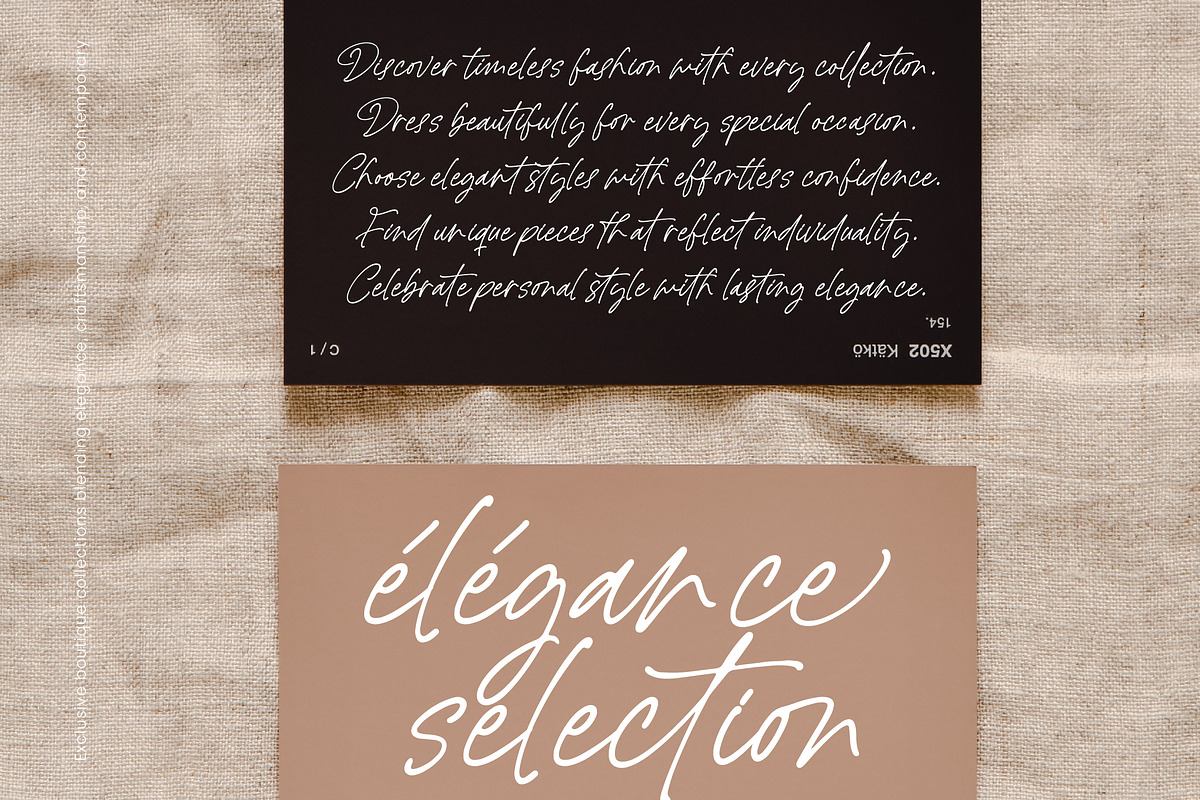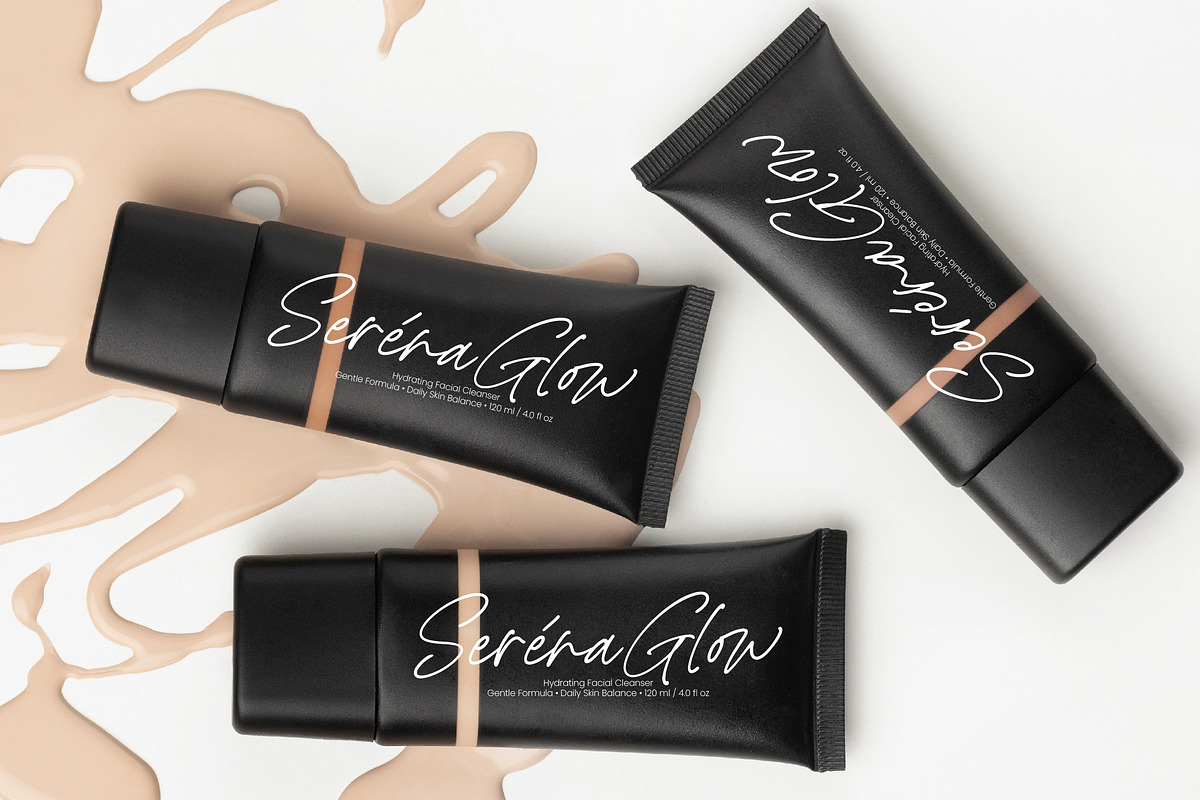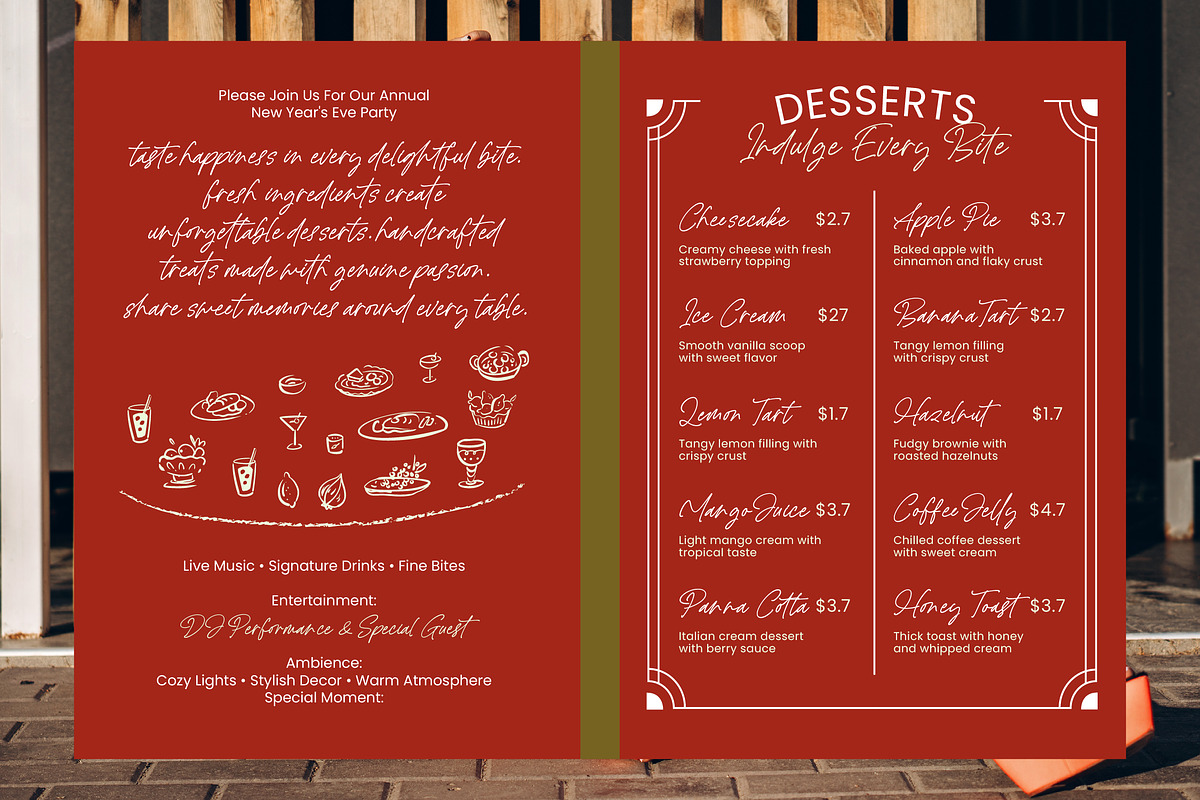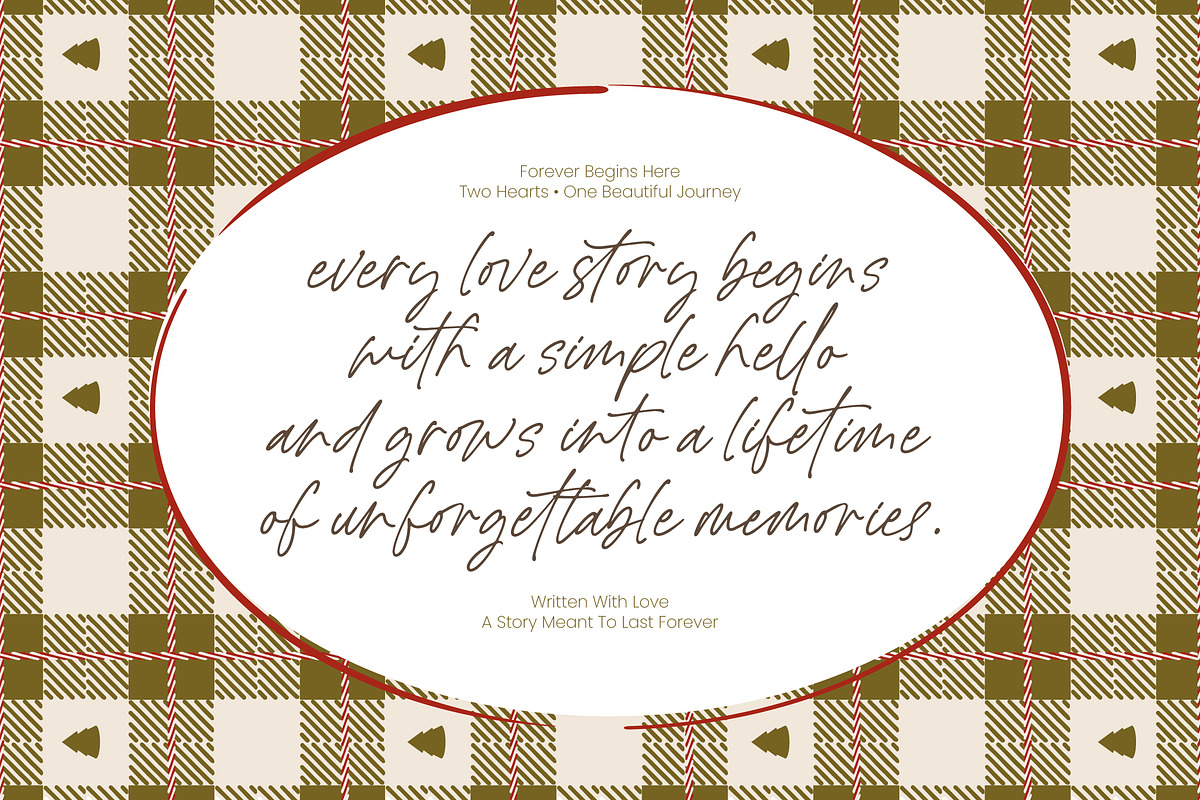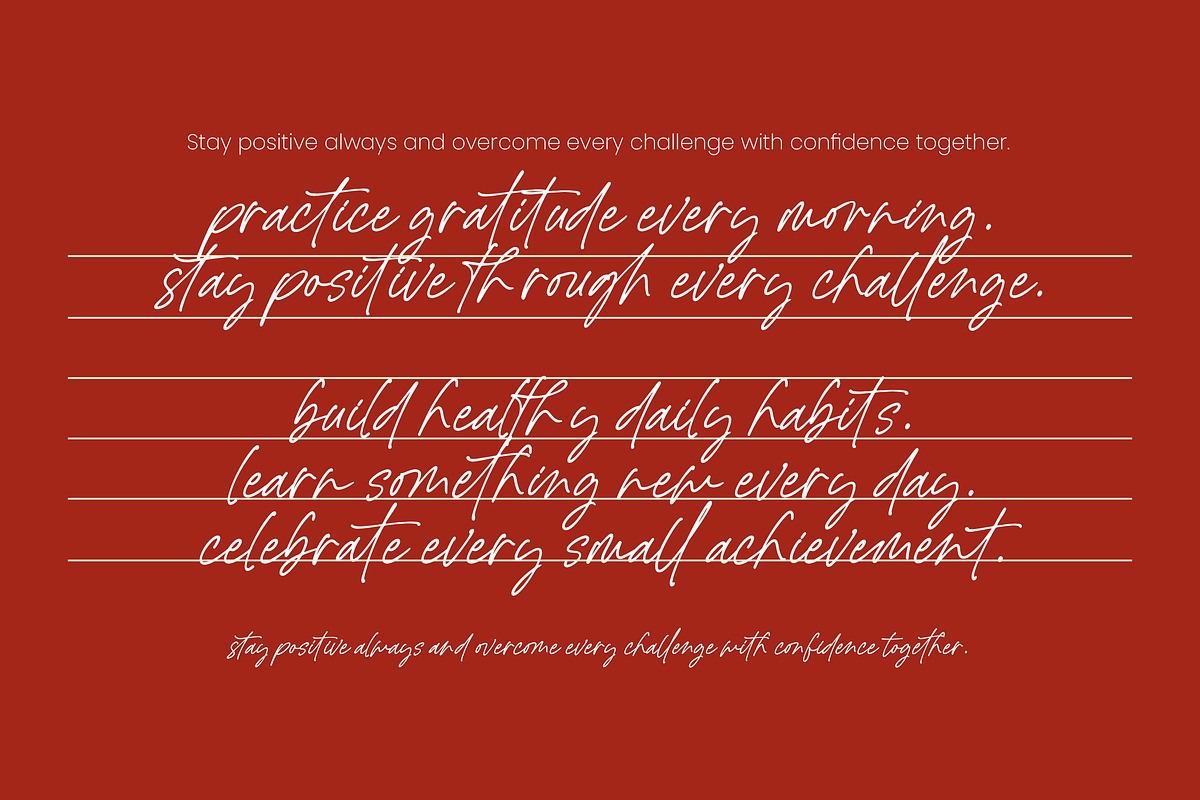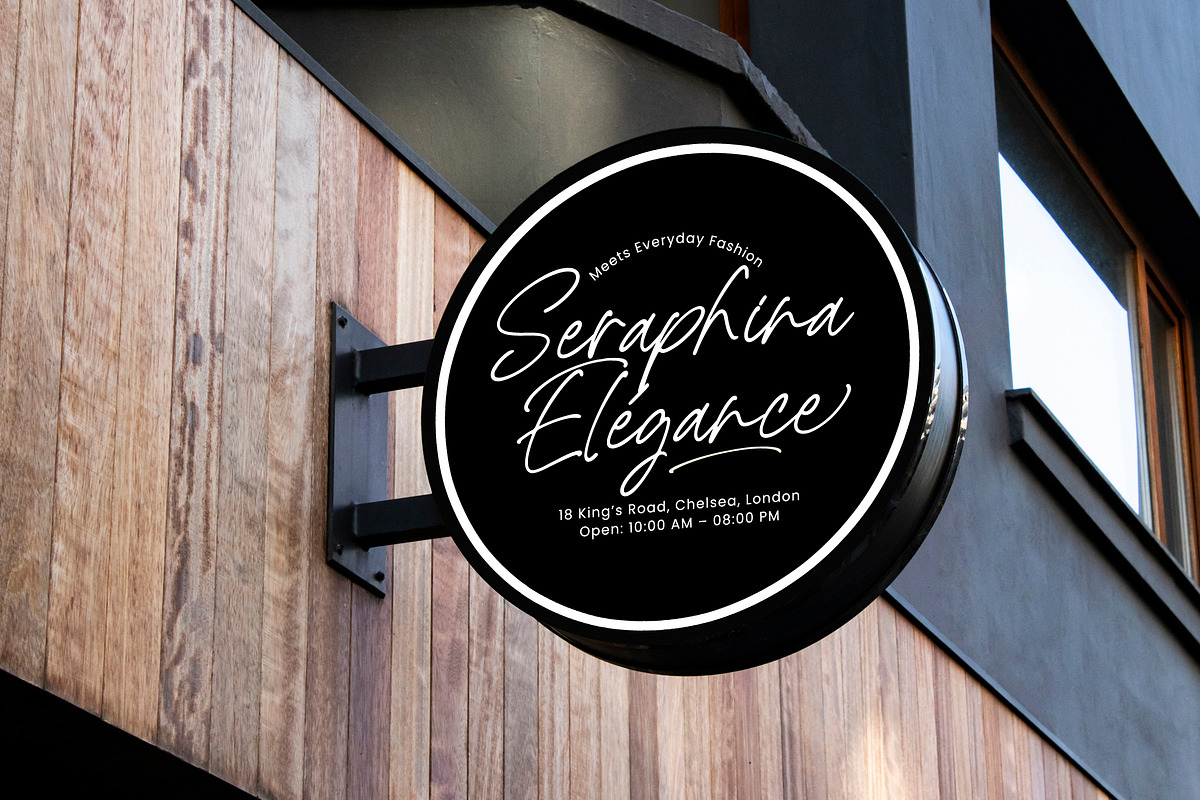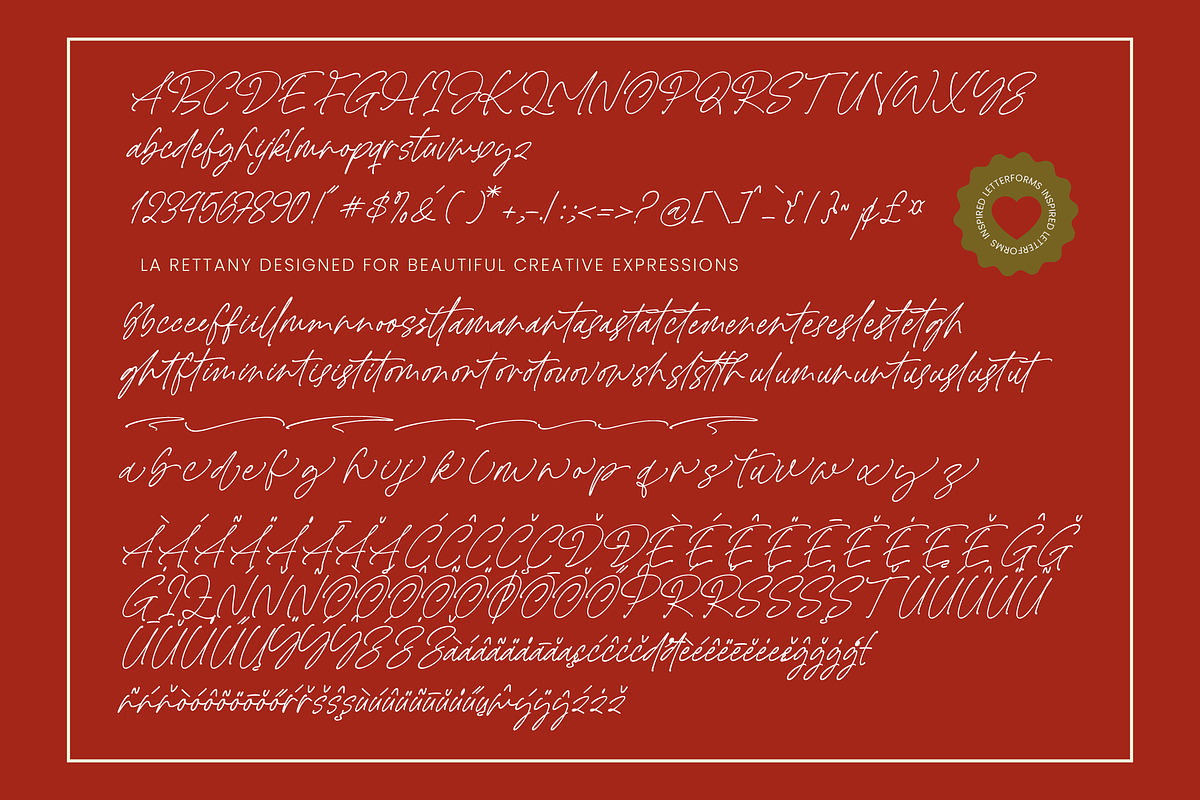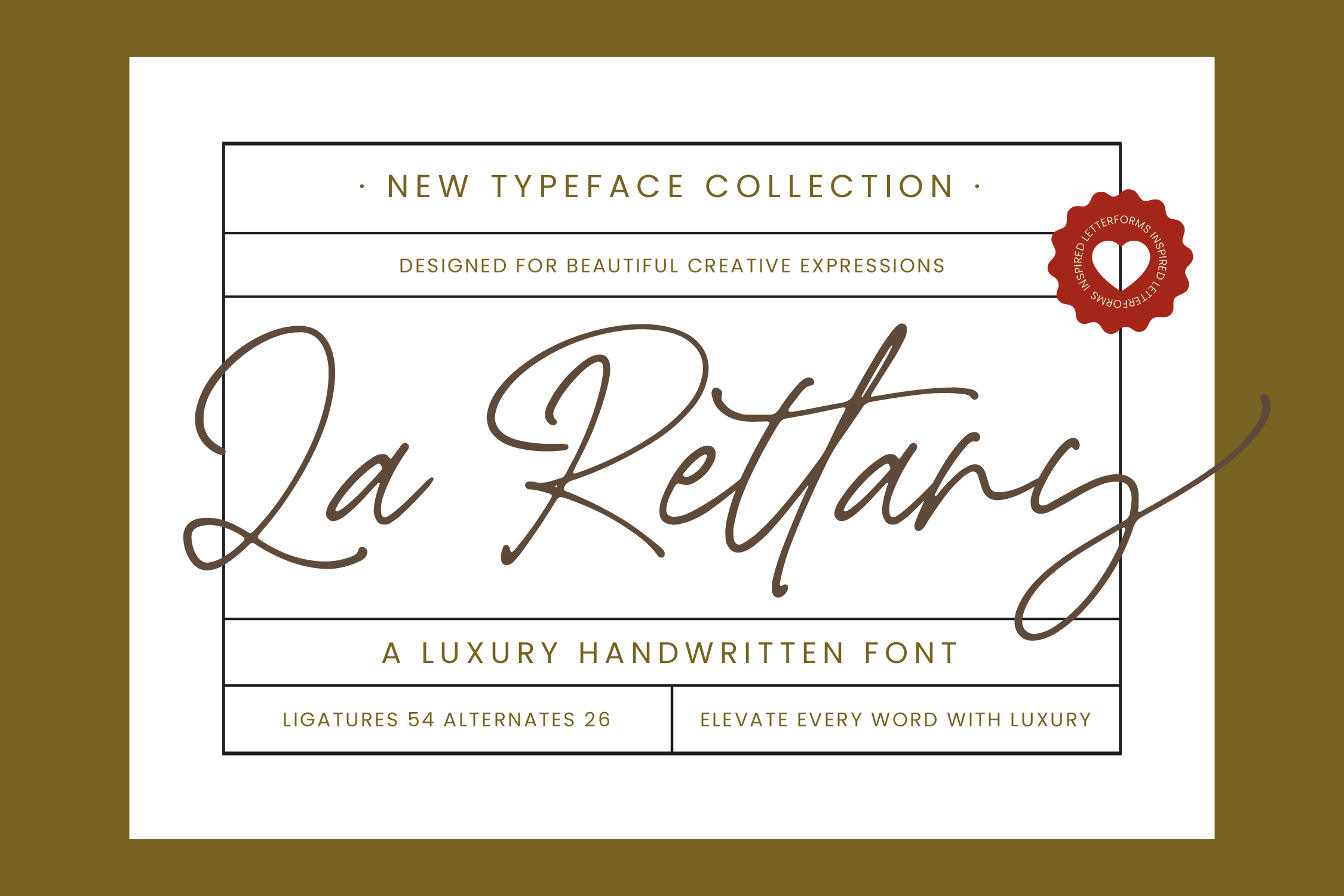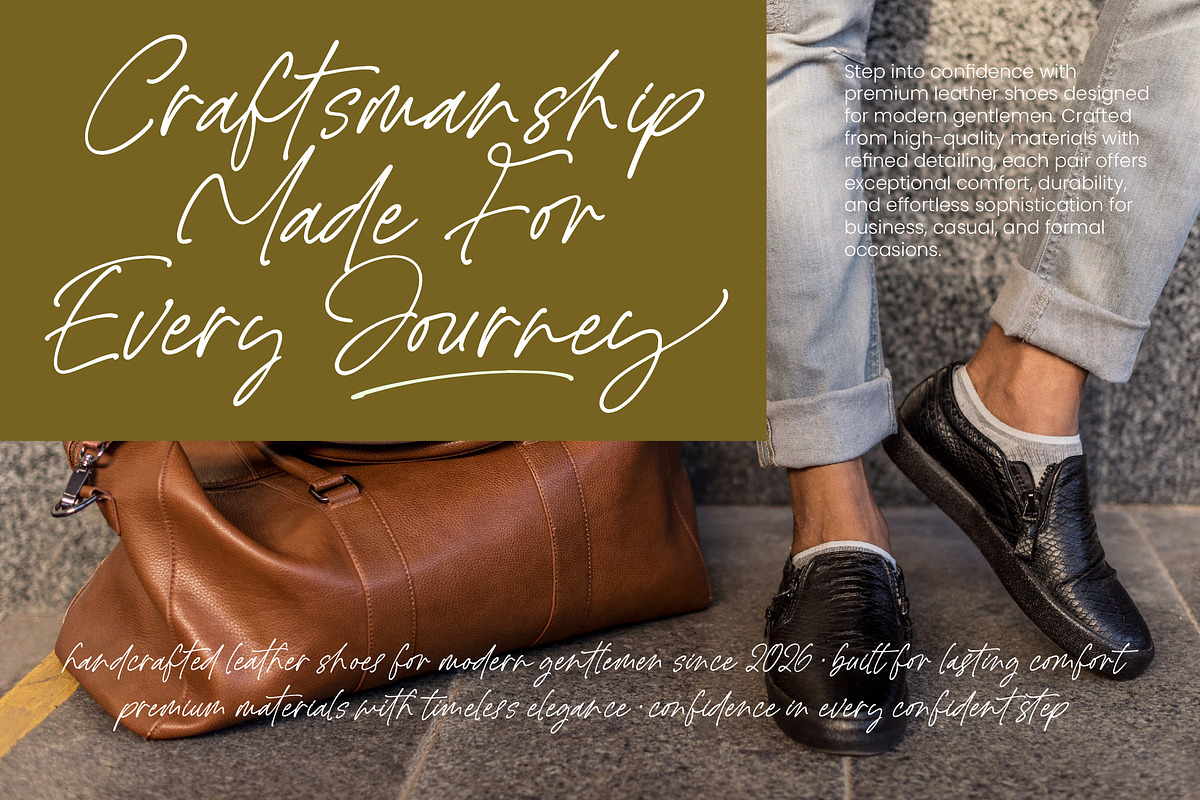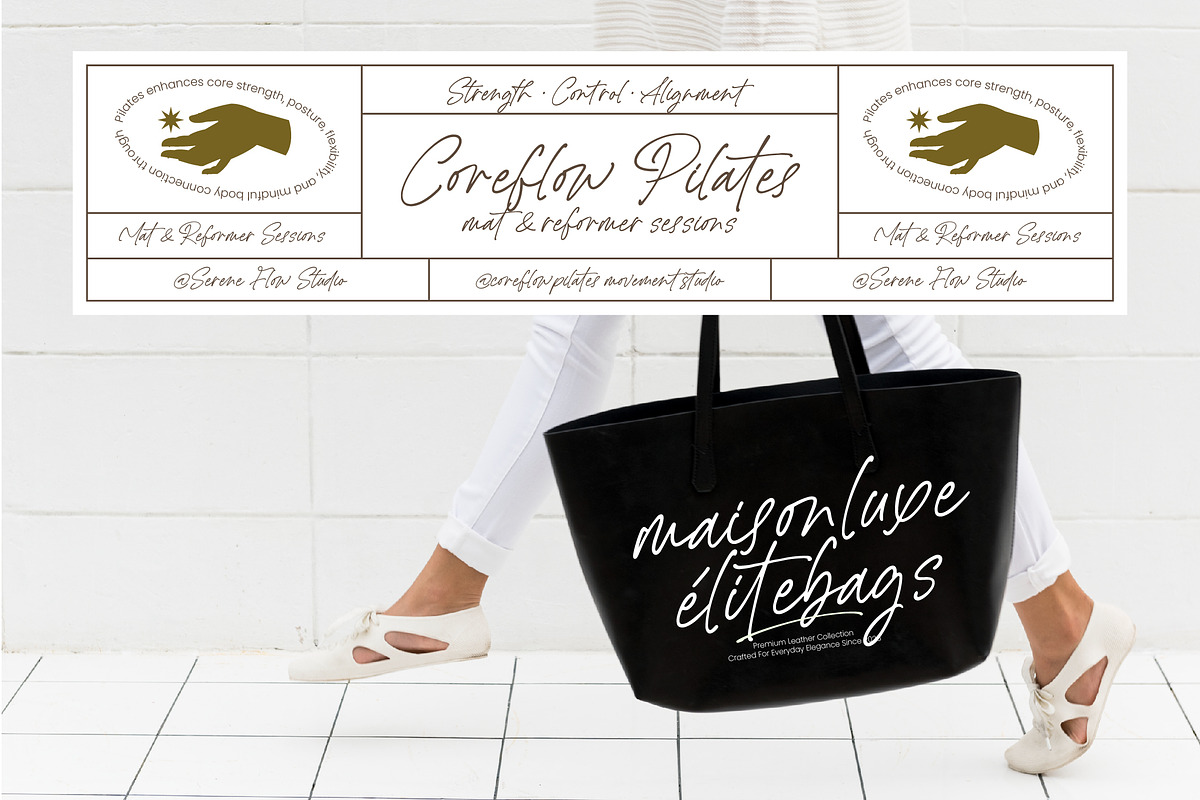
La Rettany Luxury Handwritten Font
La Rettany - Luxury Handwritten Font
Elevate your brand's visual identity with unparalleled grace and sophisticated charm. La Rettany - Luxury Handwritten Font is a masterfully crafted typeface designed to provide a bespoke quality to every design. With its fluid strokes and monolinear elegance, it captures the essence of a high-fashion signature, making it an essential tool for designers seeking to convey exclusivity and premium craftsmanship in their digital and print media.
Precision-engineered for high-impact results, this typeface serves as the ultimate luxury branding solution. La Rettany - Luxury Handwritten Font is perfect for premium packaging, editorial design, and upscale wedding stationery. Whether you are developing a boutique logo or creating sophisticated social media graphics, this font provides the artistic flair needed to stand out in a crowded market while maintaining a professional and timeless appeal.
Empower your global outreach with a versatile typeface that speaks a universal language of elegance. Featuring a robust collection of 54 ligatures and 26 alternates, this font offers endless creative possibilities for dynamic typography. With its extensive multilingual support, La Rettany - Luxury Handwritten Font adapts seamlessly across global markets, making it incredibly versatile for international projects and ensuring your message resonates with clarity and style.
Transform every word into a striking statement of luxury and professional excellence. Investing in La Rettany - Luxury Handwritten Font means choosing a commercially viable asset that balances organic aesthetics with functional readability. This modern script is the ideal choice for visionary brands and creative agencies looking to deliver a high-end experience. Secure this versatile font today to elevate your portfolio with the pinnacle of contemporary handwritten design.